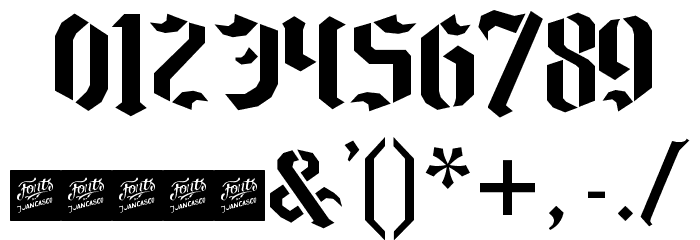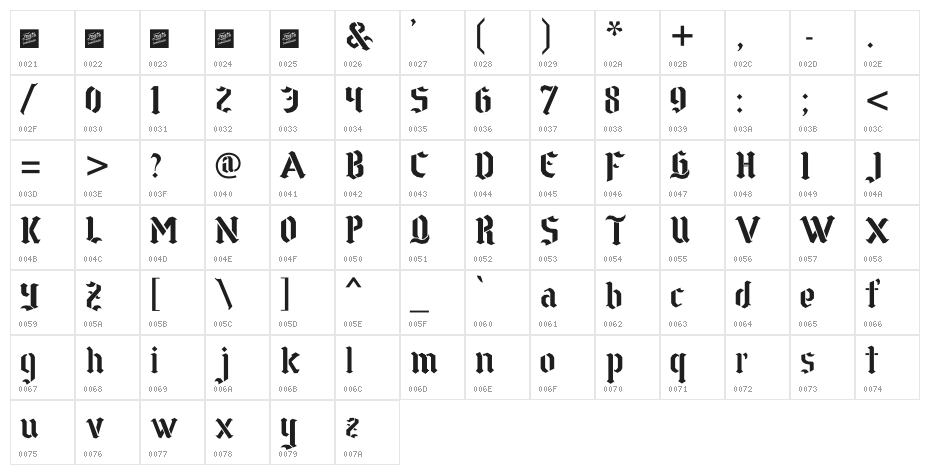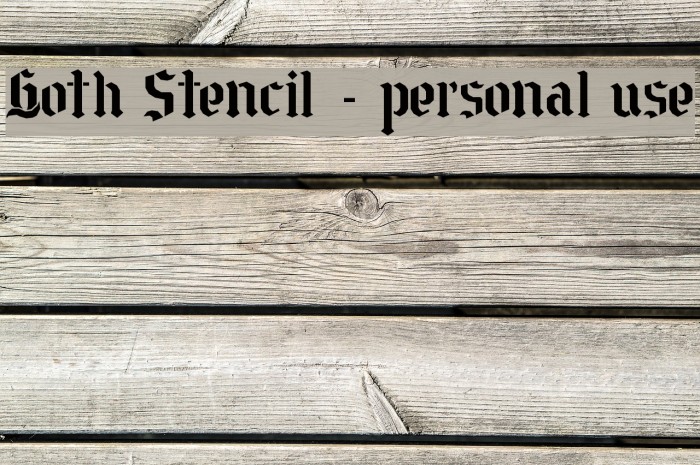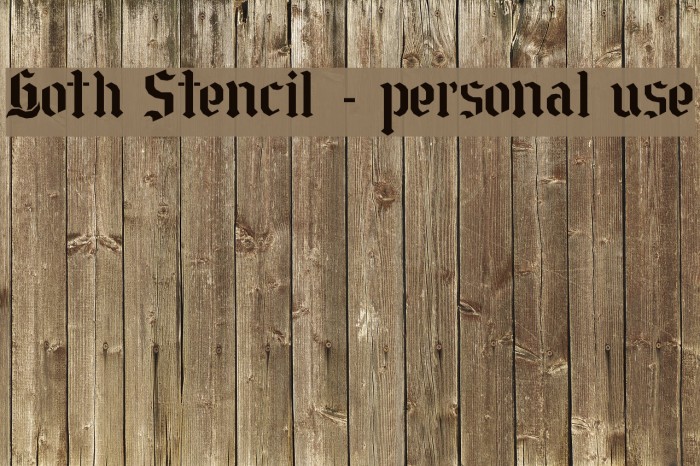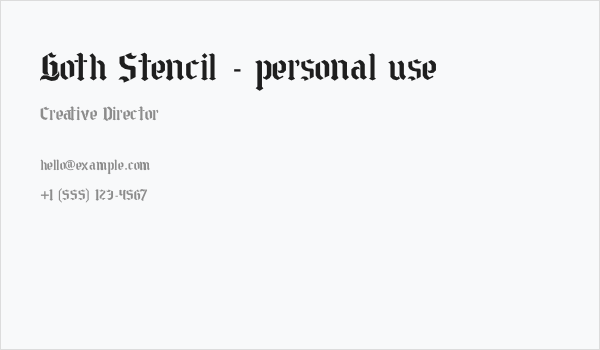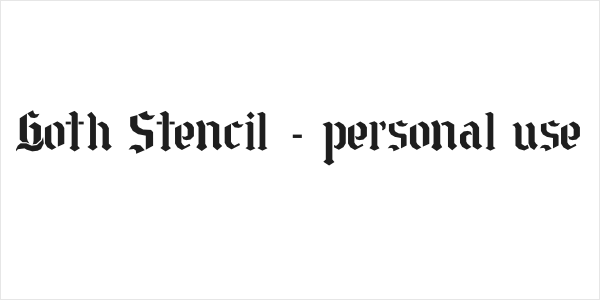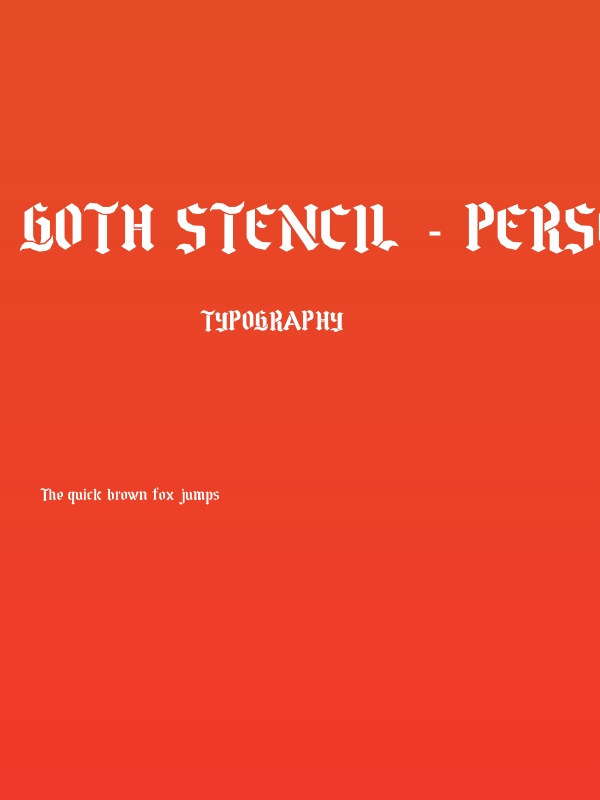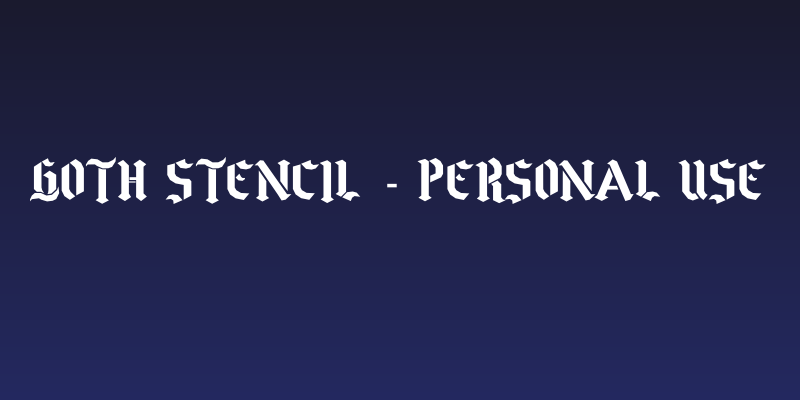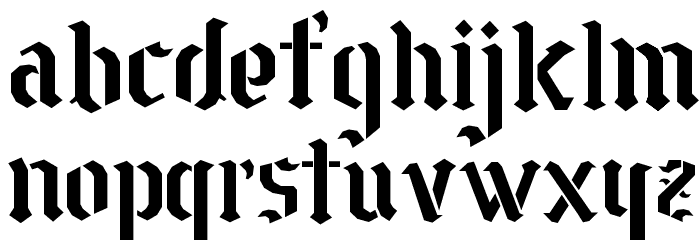
Goth Stencil - personal use Font
Goth Stencil - personal use Description
This font features a bold, dramatic style with a distinct gothic influence, characterized by sharp angles and a stencil-like appearance. The uppercase letters are particularly striking, with strong vertical lines and pointed serifs that give a sense of authority and tradition. The lowercase letters maintain the same boldness, with a slightly more condensed form. Numbers and special characters follow the same stylistic cues, ensuring consistency across all glyphs. The overall design is reminiscent of medieval script, yet modernized with its stencil cutouts, making it suitable for contemporary designs that require a touch of historical elegance.
| Proposed Projects | Ideal for branding, posters, album covers, and any project needing a bold, historical aesthetic. |